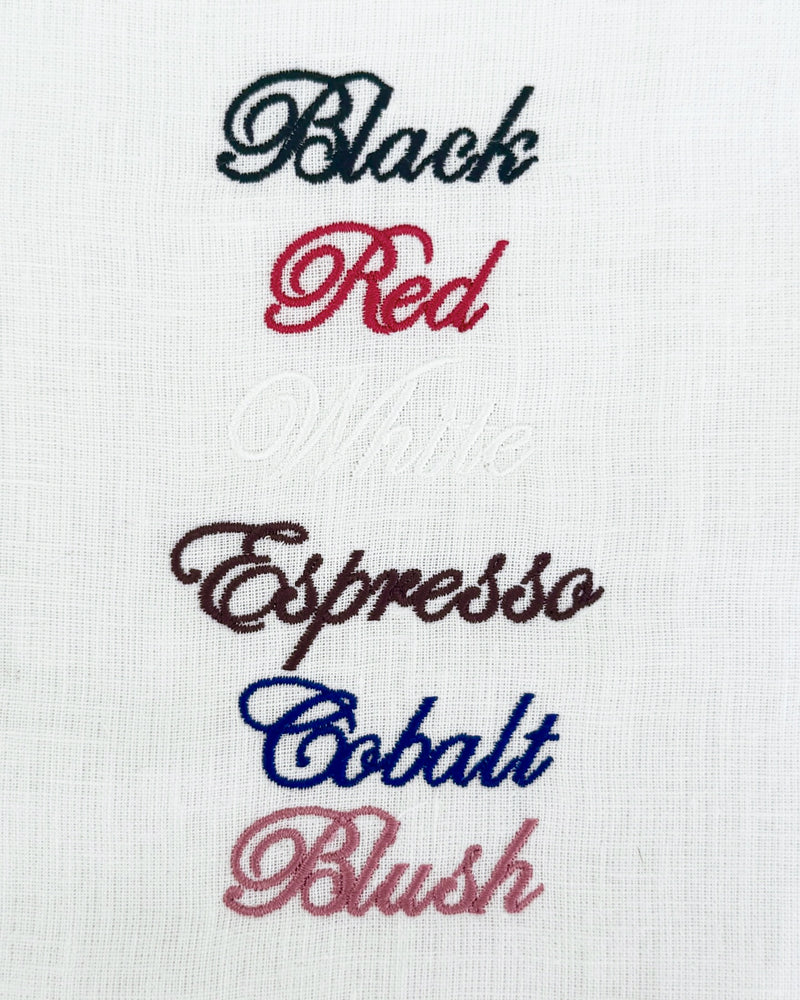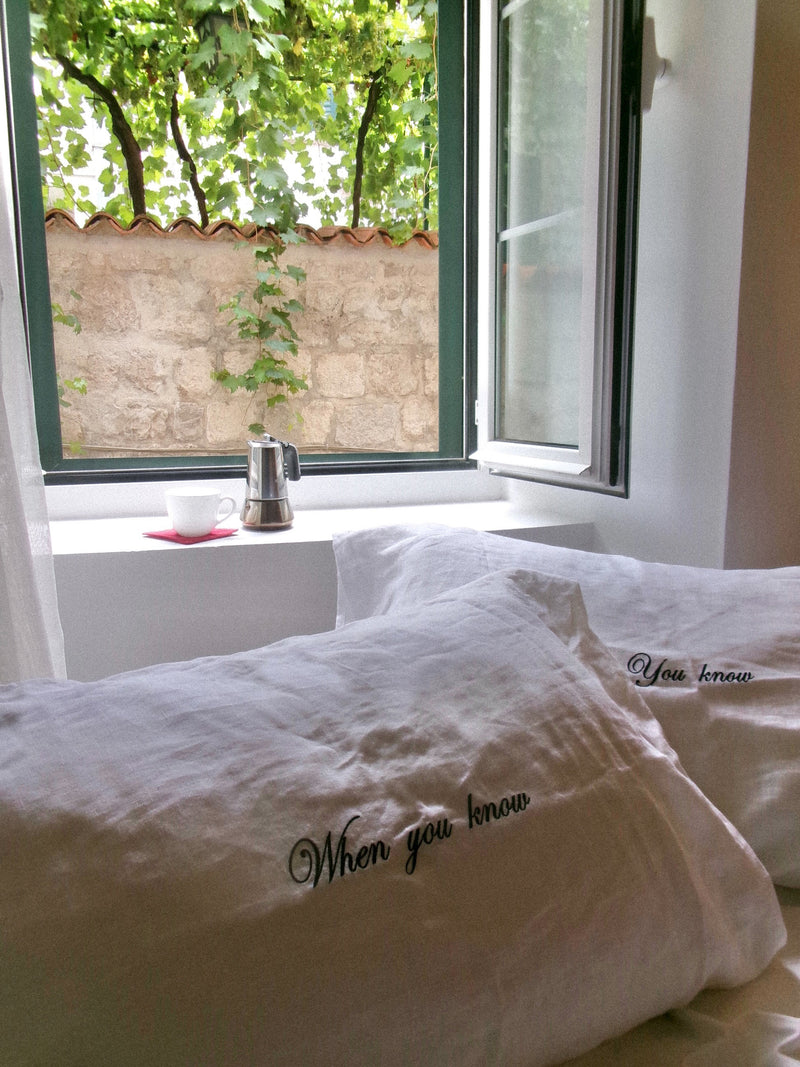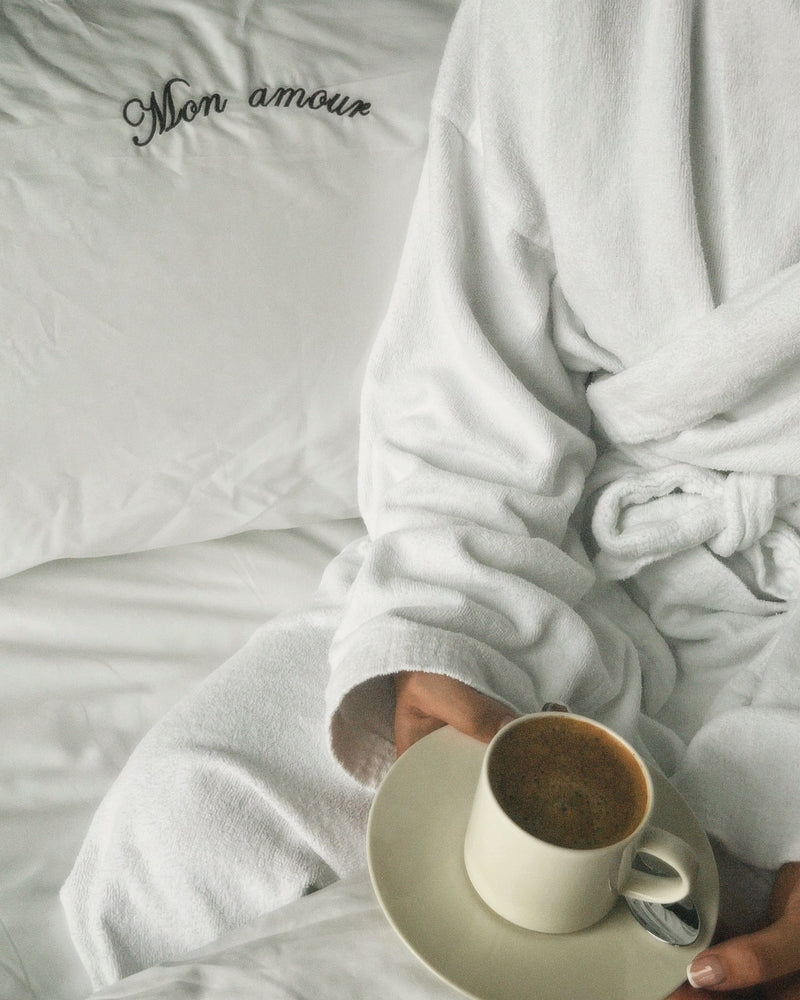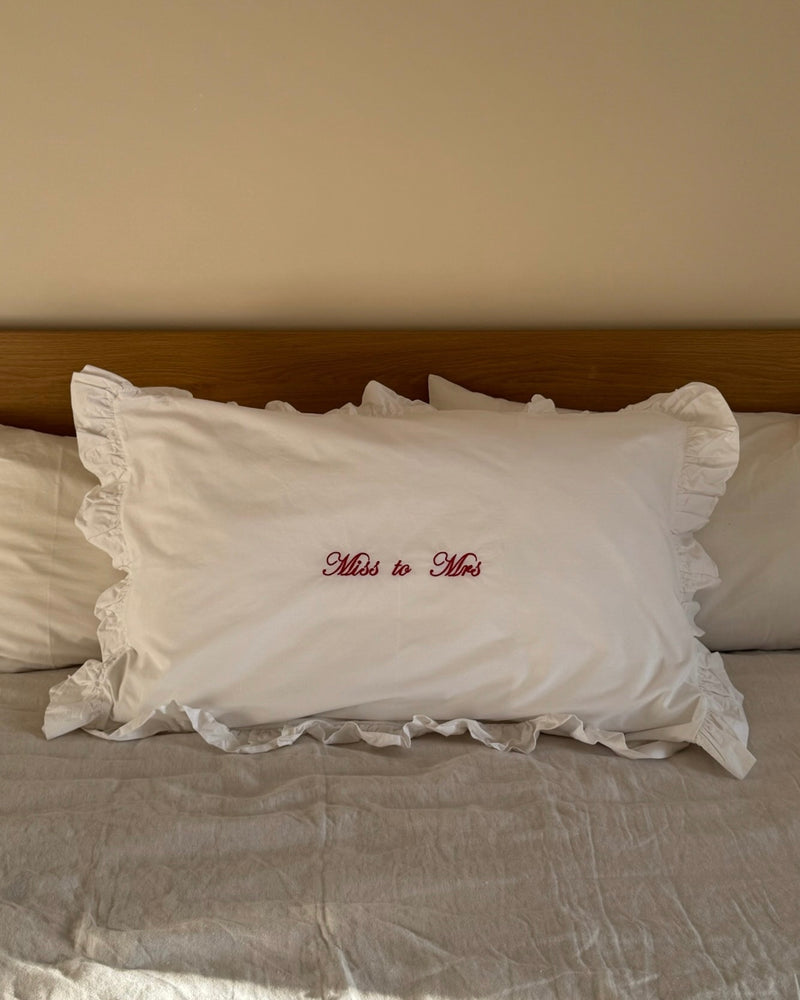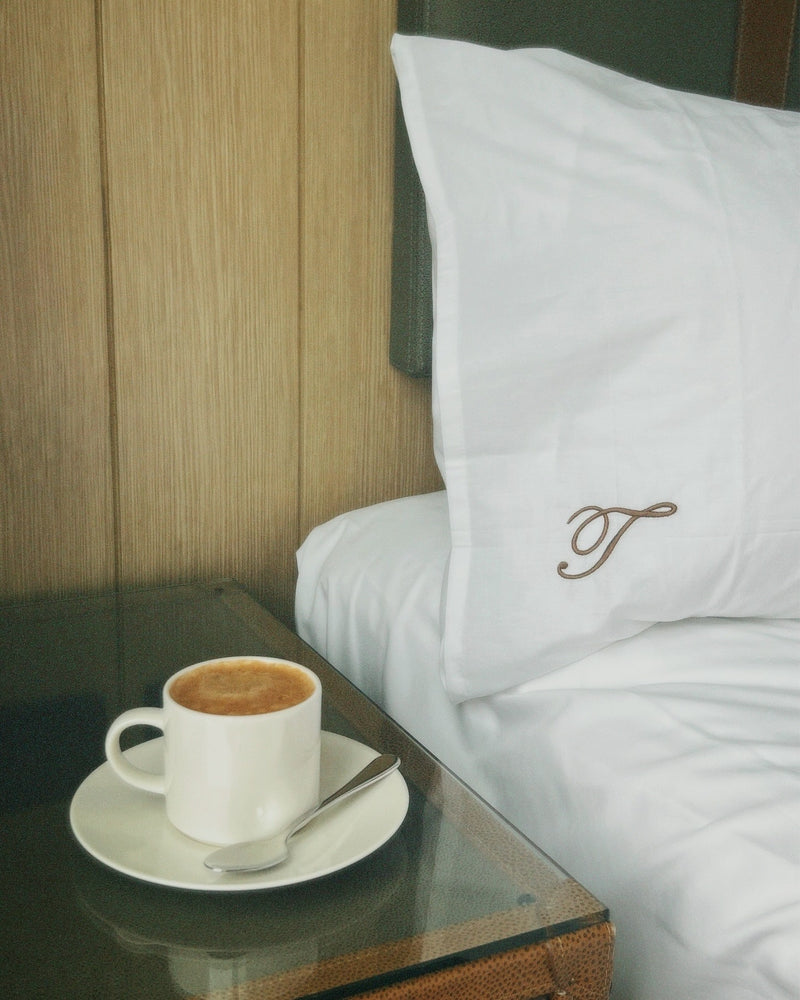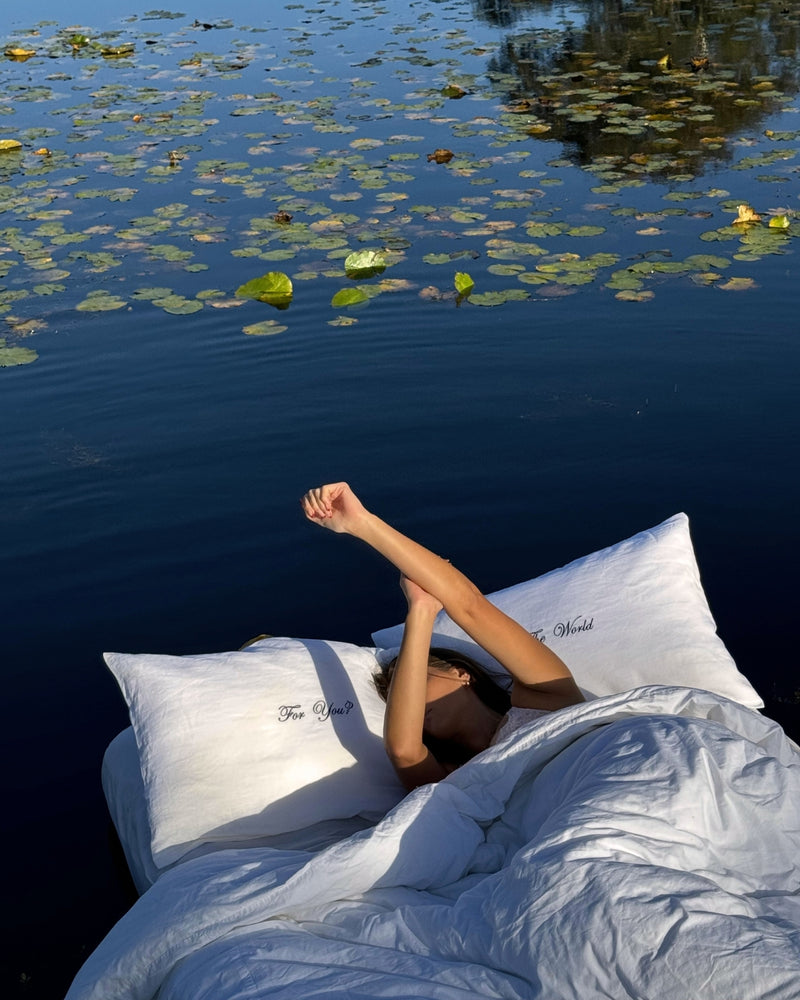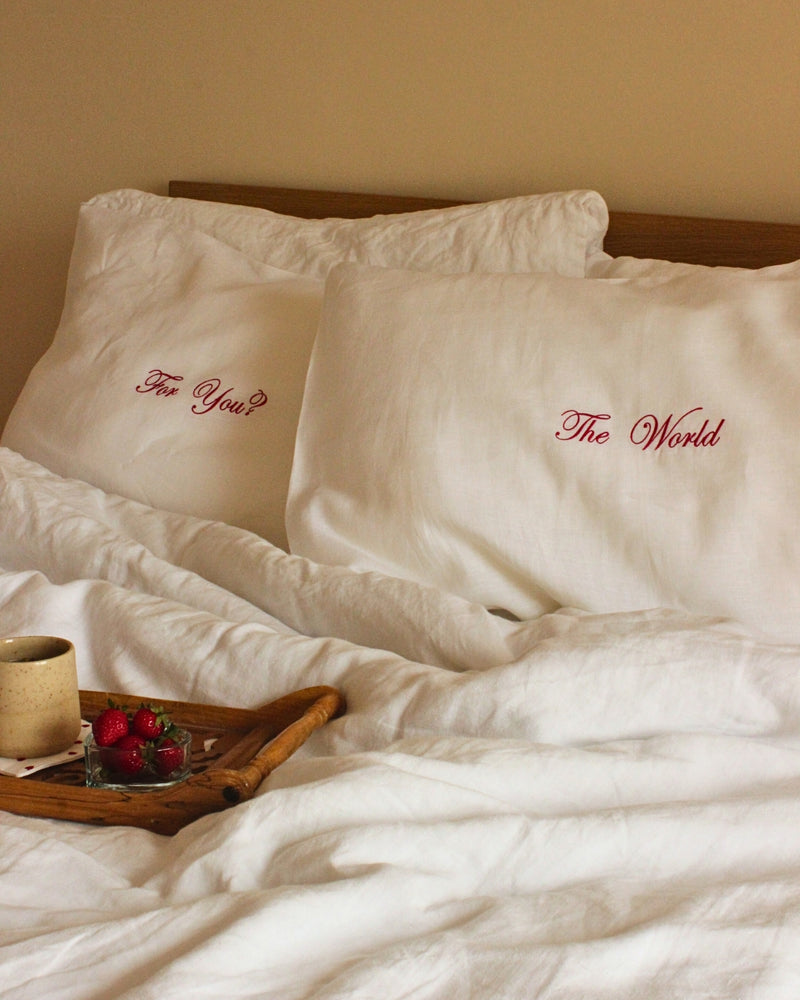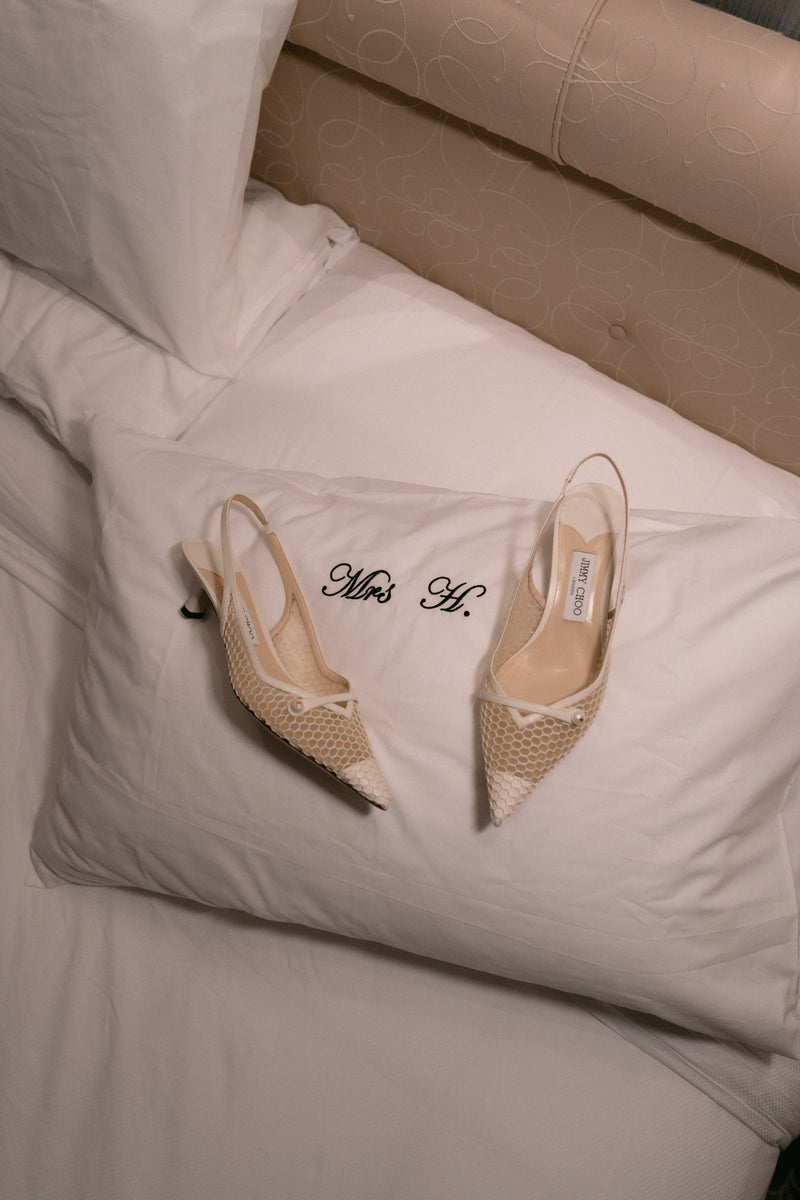
The Lorelai Font
Our custom embroidery font Lorelai is a romantic font that embodies softness and elegance. Browse the full offering of this font below to help you to envision your custom embroidery piece.